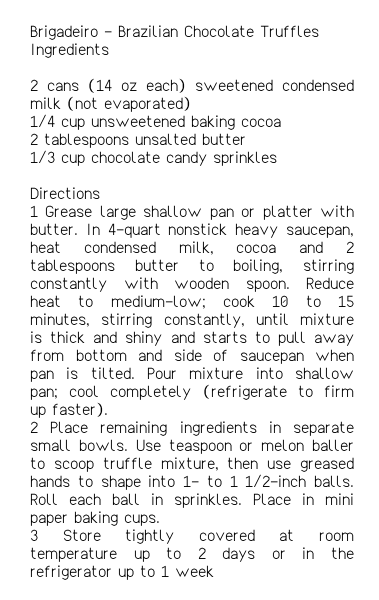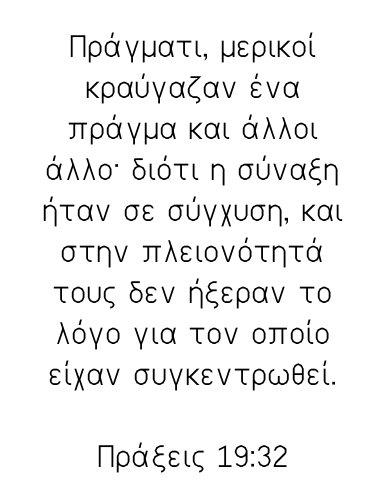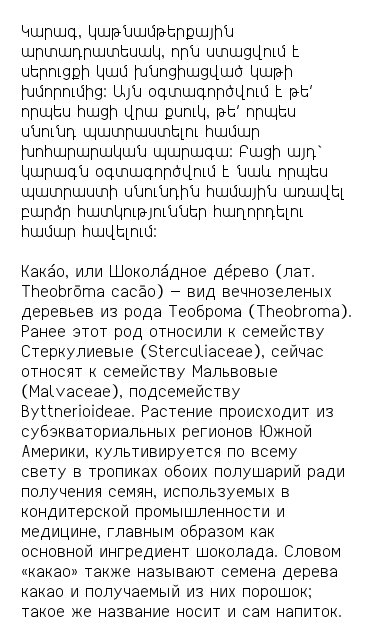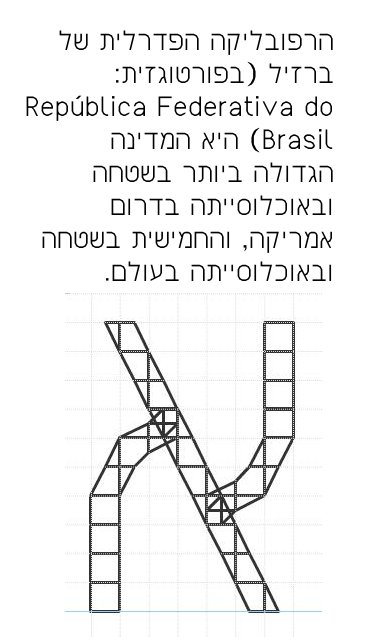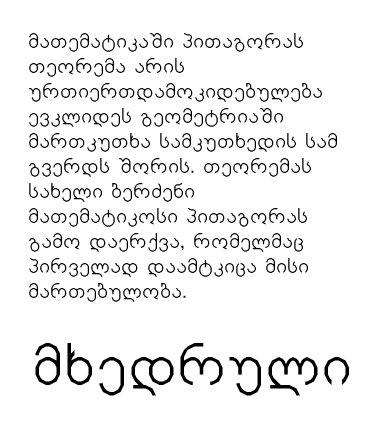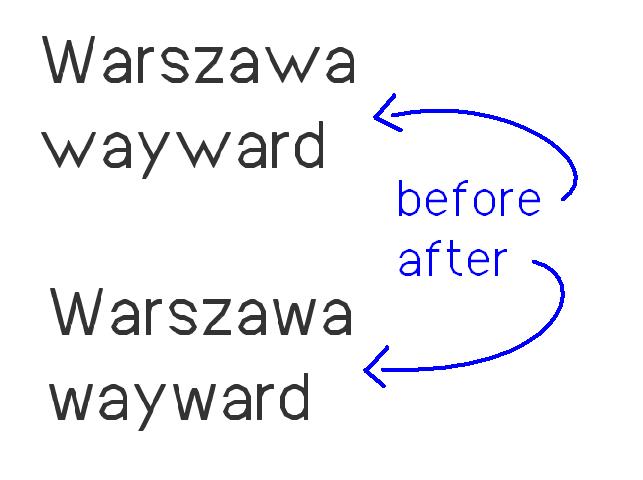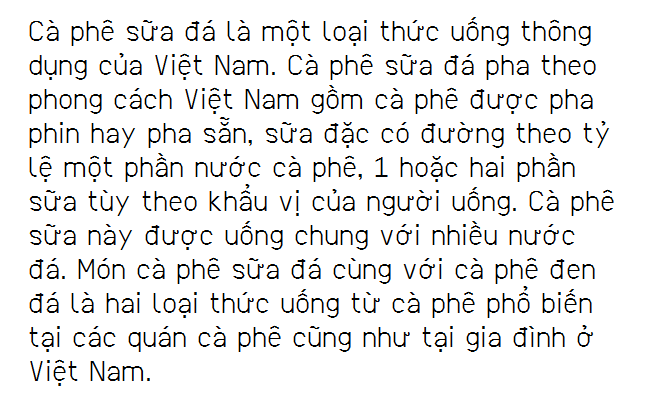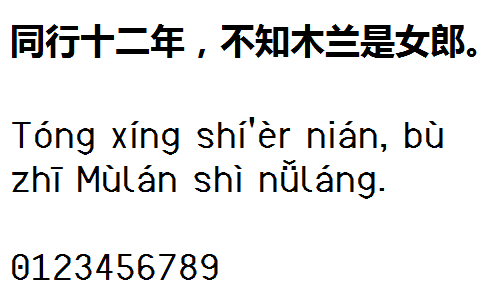
oooooooo my god so fancyyyyyy you got such a talent dude
Wow, it's great! One of the few pan-unicode fonts that's not pixelated as well. :)
Some minor updates. The breve (both in Latin and Cyrillic) looks better, Hebrew geresh was moved up to make it stand out, and a few letters of Georgian (the names os which I can't recall) were improved.
New lowercase W. I hope you enjoy the slenderer (does this word even exist?) design.
Cedilla and ogonek improved.
JUst added S and T with comma, an o with ogonek
I'm always interested to see how people add to their fonts writing systems, which they know little. But even Giambattista Bodoni made it with some mistakes. This is often a problem with the proportions of the characters and, less often, forms. You have these problems are observed in Latin and Cyrillic (I can only evaluate them). You've done a lot of work and I do not want it to be completely in vain.
Letters such as 'B', 'Z', 'S', 'K', 'R', 'З' should be a little wider at the bottom than at the top. Your 'E', 'F', 'L' is too wide. Lowercase 's' and 'a' have a strange upper part, 'v' is too wide, and at 'j' and 'з' serifs are not justified. 'X' looks narrow, when 'K' have a horizontal bar. 'Д' and 'Л' must have the same structure, and 'Л' narrower than 'П' always. 'Ф' need to do more widely. 'Ж' should not be significantly narrower than the two 'К'. 'П' narrower than 'Н' and 'Ц' narrower than 'П' (except removal), but it should not be too noticeable. Lowercase 'y' (latin) and 'y' (cyrillic) must be the same. Bowl at 'з' and 'в' should be the same. Bowl at 'ь', 'ъ', 'ы', 'я' can be larger. Oval in letter 'б' should not be too small.
Even now, Cyrillic unconditionally good only in the two Windows system fonts: Verdana and Georgia. Times and Arial are evil:)
I hope this review will help not only you.
There's one more thing. 'Н' narrower than 'И'.
@ Sychoff: Thank you for your feedback. My native writing system is Latin (I speak Portuguese), so I was eager to have some input on the way I interpreted Cyrillic.
"з" has a serif because I wanted to make it very distinct from  "э". "j" has a serif because it looks too wide without it, creating some blank space between it and any other letter to its left. "K" has a horizontal bar because I simply couldn't make it work without one. I tried making "Д" and "Л" more similar to each other, but "Д" always ended up looking weird.
When you mention the bows at "ь", "ъ", "ы", "я", you said they can be larger, but do you mean taller, wider, or both?
JUst made some changes, having Sychoff's comments in mind
When I first started designing this I told myself "No, I will never ever even bother to add Vietnamese, it's too complicated, it'll never work, it'll take too much time." And yet, here we are...
The capital letters with two diacritics had to be shrunk vertically. Not the best solution ever, but it's the one solution that worked for me. ;)
This has improved drastically, I really like the look of all the glyphs. You are on the path to being a great FSor. It's in my favs now.
One minor update. Greek Φ, Cyrillic Ф, and Armenian Փ were actually different from each other, that's improved now. And Greek Ψ is now a little wider.
Great news! Brigadeiro FS can now be used to write Chinese!! #kinda #notreally
Just added the last characters needed to write Pinyin, including ü with caron, as you can see from the example. The Chinese characters you see is from one of the standart Microsoft fonts.
There's also a minor design change in the zero (dot instead of slash). Looks better this way in my opinion.
I think I can call it finished. Thank you all for your support, help and input!!! :) :) :)
how about actual CJK letters?
Could you make Kanji and Hangul, please?
I'm not asking for CJK, there are too much letters.